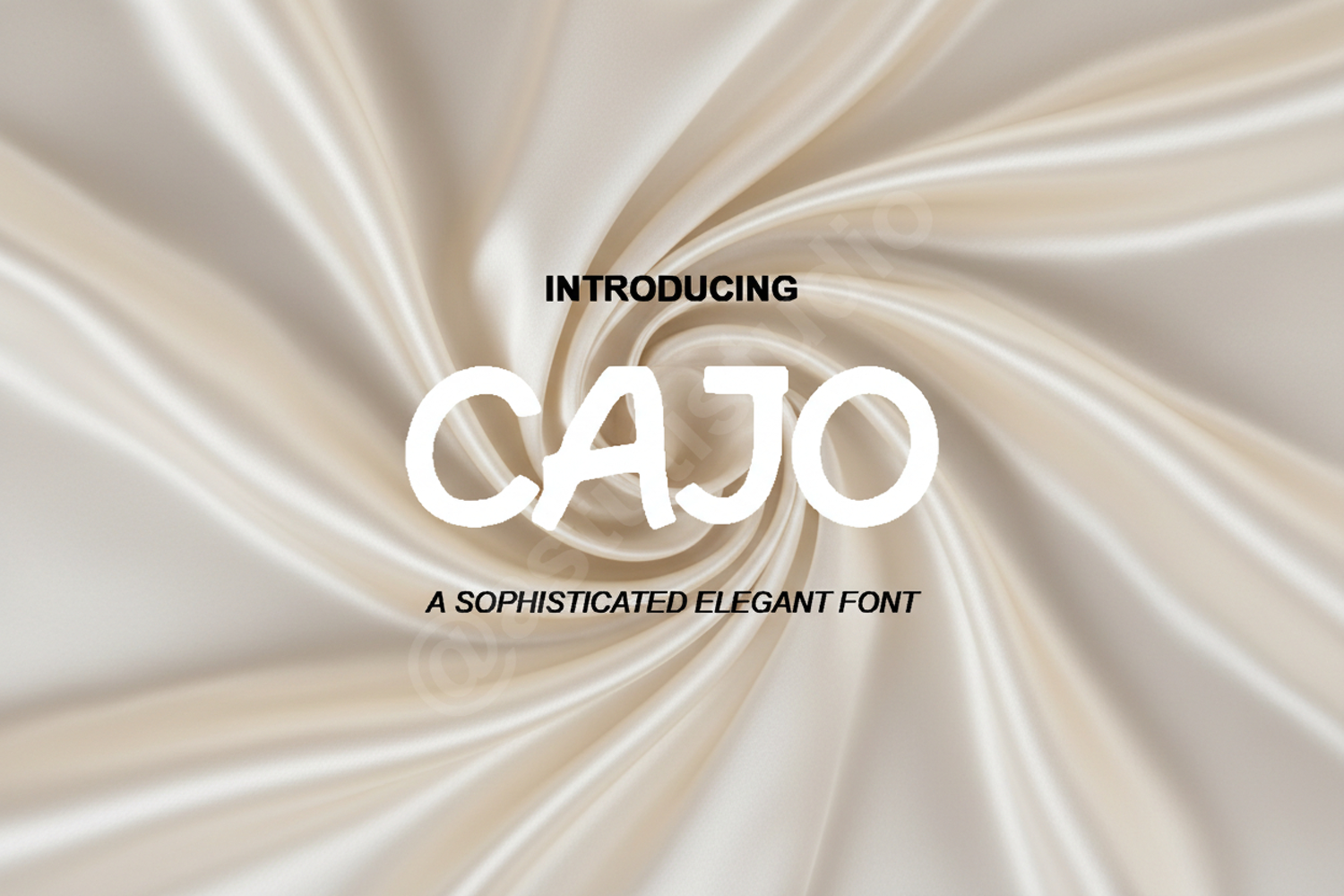
Cajo | Modern & Minimalist Sans Serif
Cajo
Cajo is a premium sans serif typeface designed for clarity and modern aesthetics. With its clean lines and balanced proportions, Cajo offers a sophisticated touch to any creative project. Whether you are building a high-end brand identity or designing a sleek website, this font provides the versatility and professional edge you need.